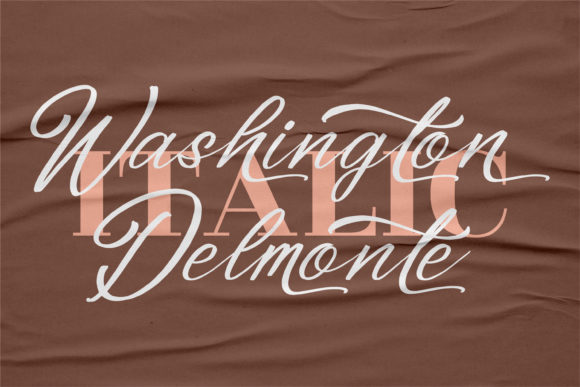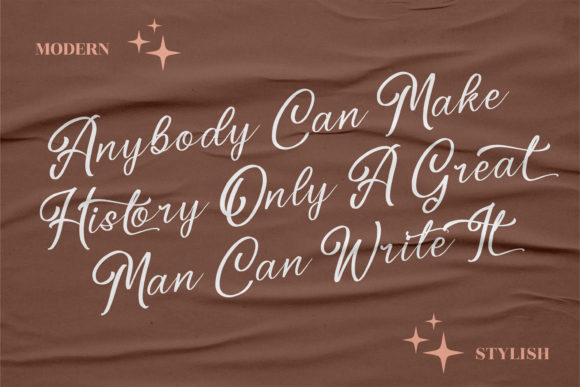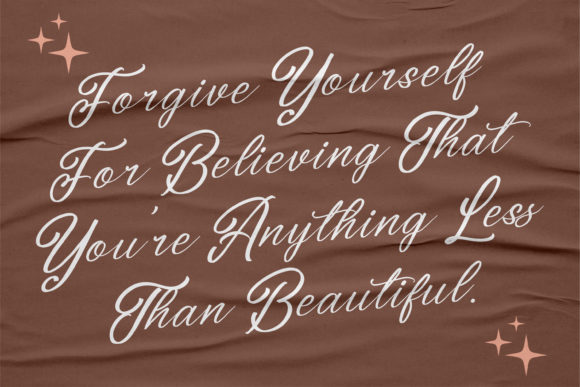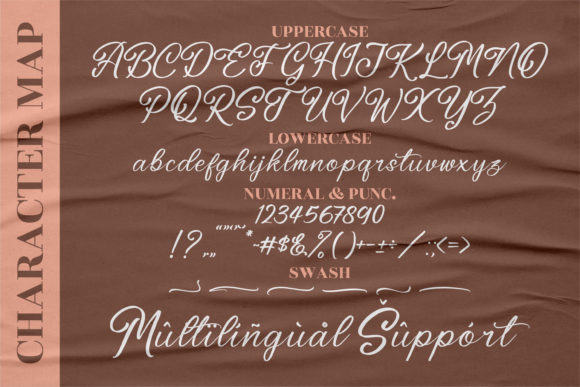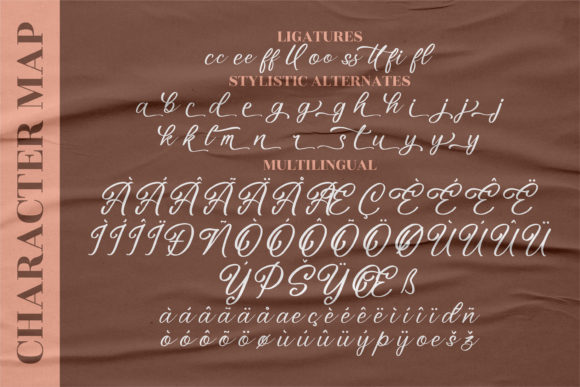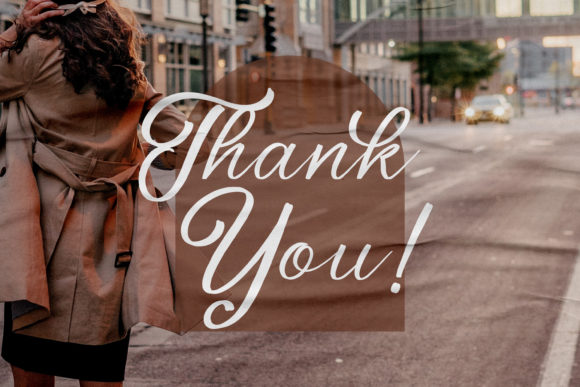
Washington Delmonte Font
About Washington Delmonte Font
Washington Delmonte is a thin lettered and graceful script font. Fall for its ravishing style and use it to create gorgeous designs! Washington Delmonte is PUA encoded which means you can access all of the amazing glyphs and ligatures with ease!